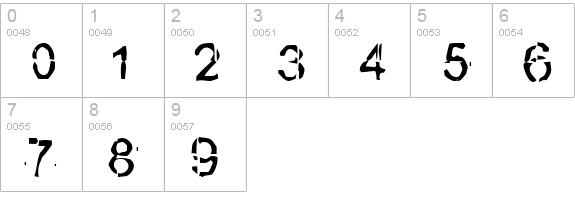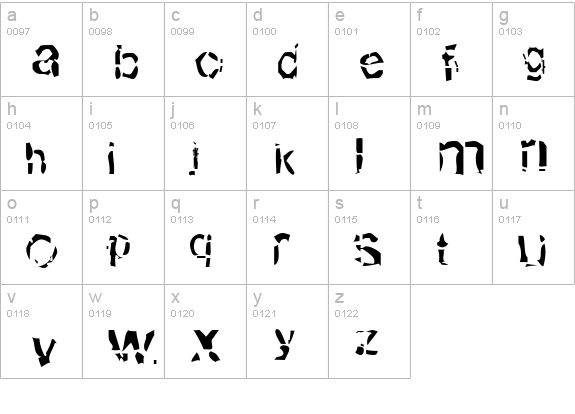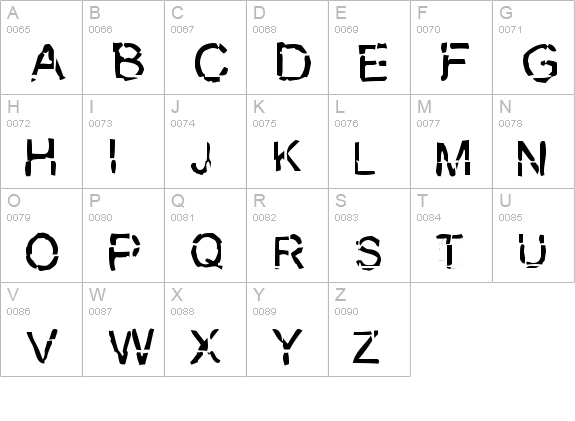
Broken Font Details
The Broken font is a unique and edgy typeface that adds a touch of rugged charm to any design project. Its distressed and fragmented appearance gives off a sense of rebellion and nonconformity, making it perfect for creating eye-catching graphics with a hint of attitude. This font is freely available for download at FontsMarket.com, allowing you to easily incorporate its bold style into your creations. Whether you're looking to add a grungy element to your posters, flyers, or social media posts, the Broken font is sure to make a statement and leave a lasting impression on your audience. Embrace the brokenness and unleash your creativity with this striking typeface today!